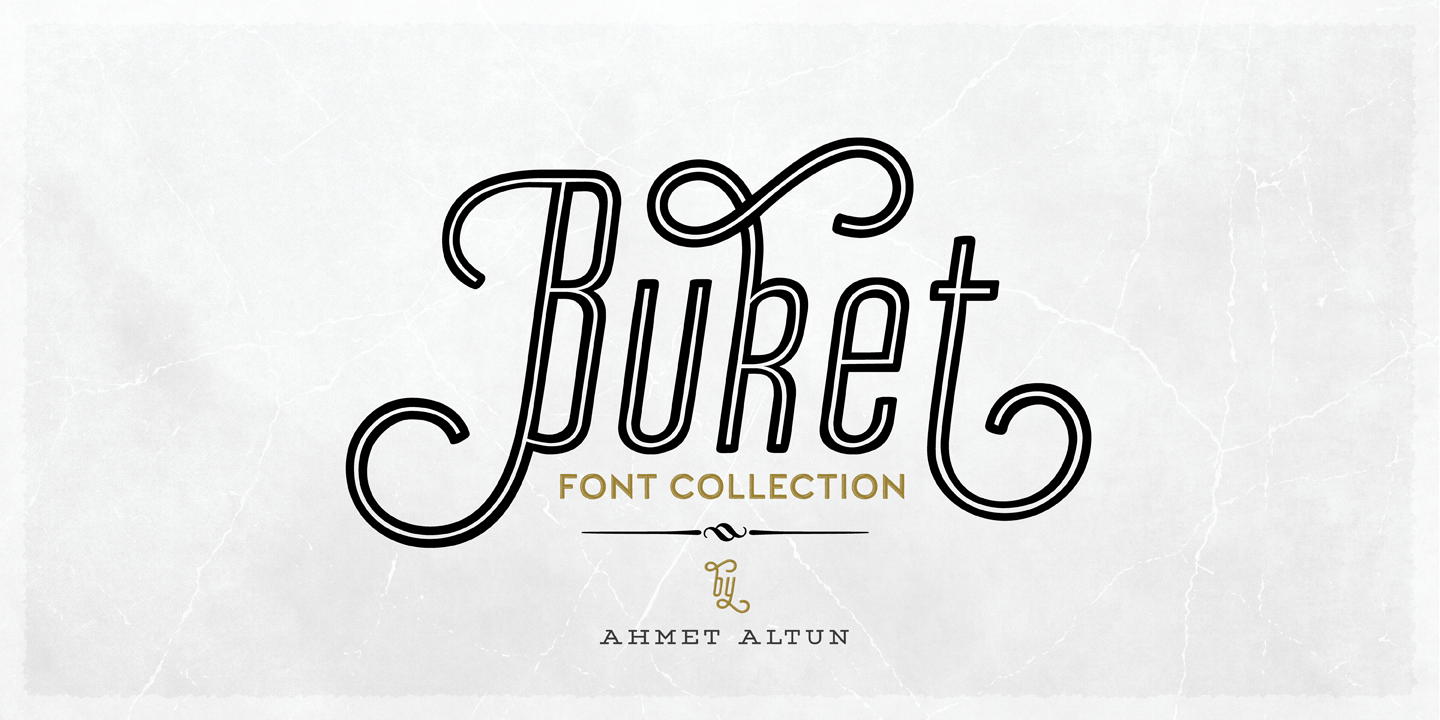
Buket Font is perfect for floral shop branding, wedding bouquet services, garden center signage, botanical event materials, nature photography watermarks, organic beauty products, spring festival promotions, flower arrangement tutorials, romantic greeting cards, and natural wellness campaigns.
Buket Font is exciting because it captures the delicate beauty and natural elegance of fresh flowers through its graceful, organically-inspired letterforms that bloom with feminine charm while delivering messages with gentle sophistication and botanical authenticity.
Buket Font family includes Regular, Bold, Light, Blossom, Italic, Condensed, Petal, and Garden variations, offering designers a complete floral toolkit to create blooming visual communications that celebrate nature's beauty and the timeless appeal of flowers across seasonal applications.
Buket Font embodies the essence of natural beauty and floral artistry, making it an invaluable resource for businesses and creators who celebrate the delicate elegance of flowers and botanical design. This graceful typeface brings organic charm to any design project, whether you're developing florist identities, creating garden-themed event materials, or designing wellness brands that honor nature's healing properties. The naturally flowing character design of Buket Font Free Download ensures maximum aesthetic appeal while maintaining excellent readability across both delicate print applications and digital platforms that celebrate the timeless beauty of flowers and botanical artistry.
Floral industry professionals consistently choose Buket Font for flower shops, wedding planners, and botanical gardens because of its ability to communicate natural beauty, romantic elegance, and deep appreciation for floral craftsmanship. The font's delicate appearance makes it particularly effective for targeting customers seeking beautiful, meaningful floral experiences and romantic celebrations.
Buket Font excels in wellness and beauty applications where natural authenticity and gentle sophistication are essential. Organic skincare brands, aromatherapy services, and natural healing centers rely on this font to create materials that reflect their commitment to botanical wellness and natural beauty treatments.
The hospitality and event planning sectors have embraced Buket Font for garden venues, romantic restaurants, and nature-inspired celebrations. Its floral visual character helps businesses create environments that celebrate natural beauty and romantic moments, appealing to customers seeking authentic connections with nature and meaningful experiences that honor life's most beautiful moments through floral artistry.